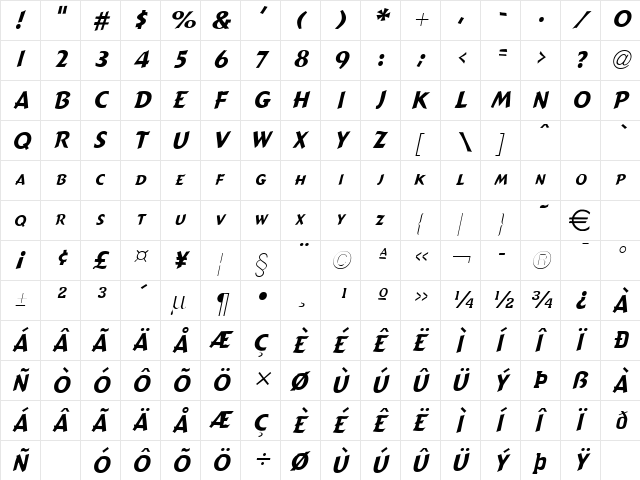
CandideNarrow Italic Font Preview
CandideNarrow Italic
CandideNarrow Italic Font Details
Design Context for CandideNarrow Typeface
CandideNarrow takes a measured approach to typography — its balanced proportions and neutral character make it a reliable workhorse for both digital and print work. The slanted form adds forward momentum and visual energy. The condensed width makes it efficient for tight spaces without sacrificing legibility.
Pro Tip: Use CandideNarrow for emphasis, pull quotes, and subheadings where its slanted energy can add rhythm to the layout.